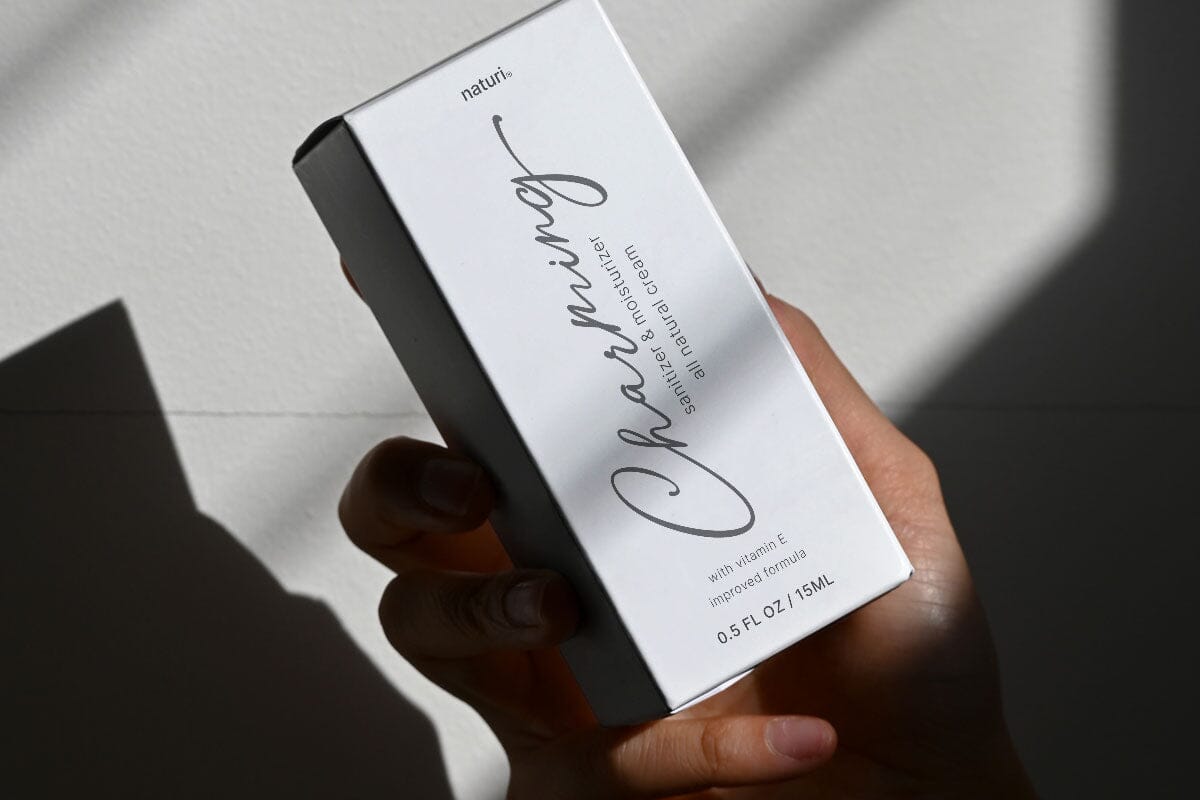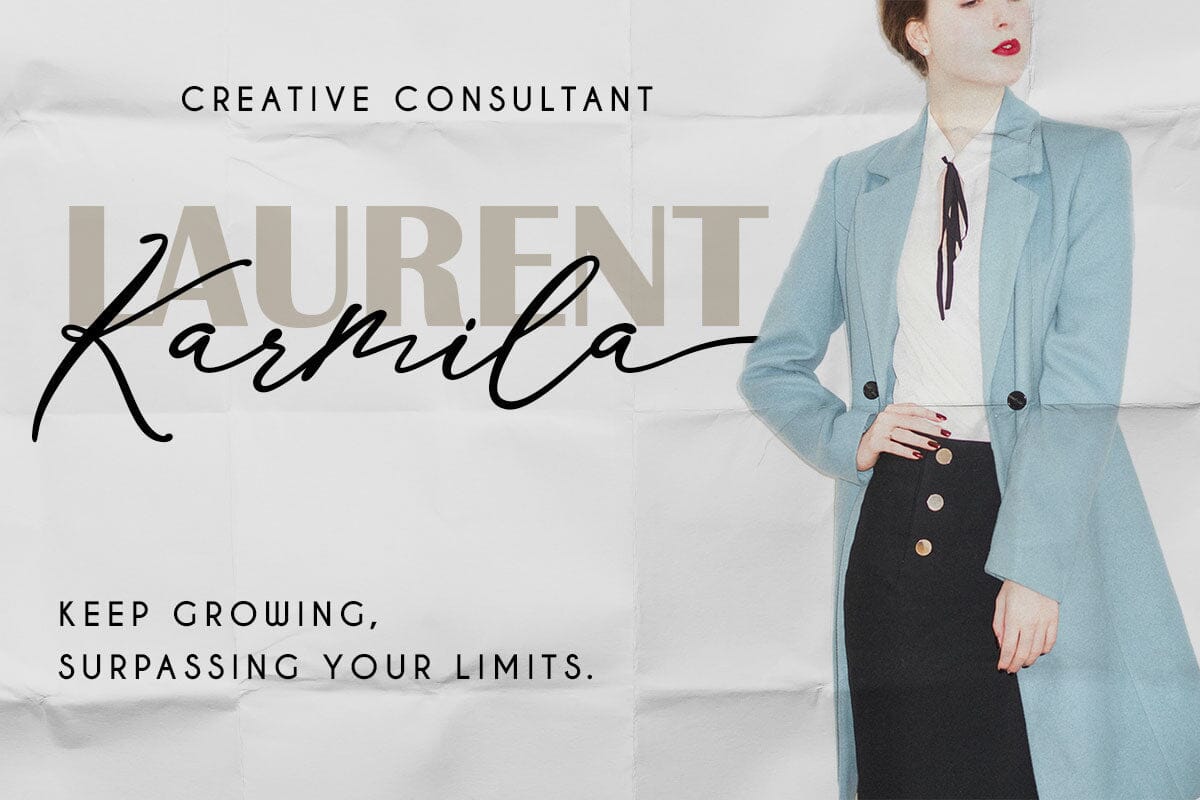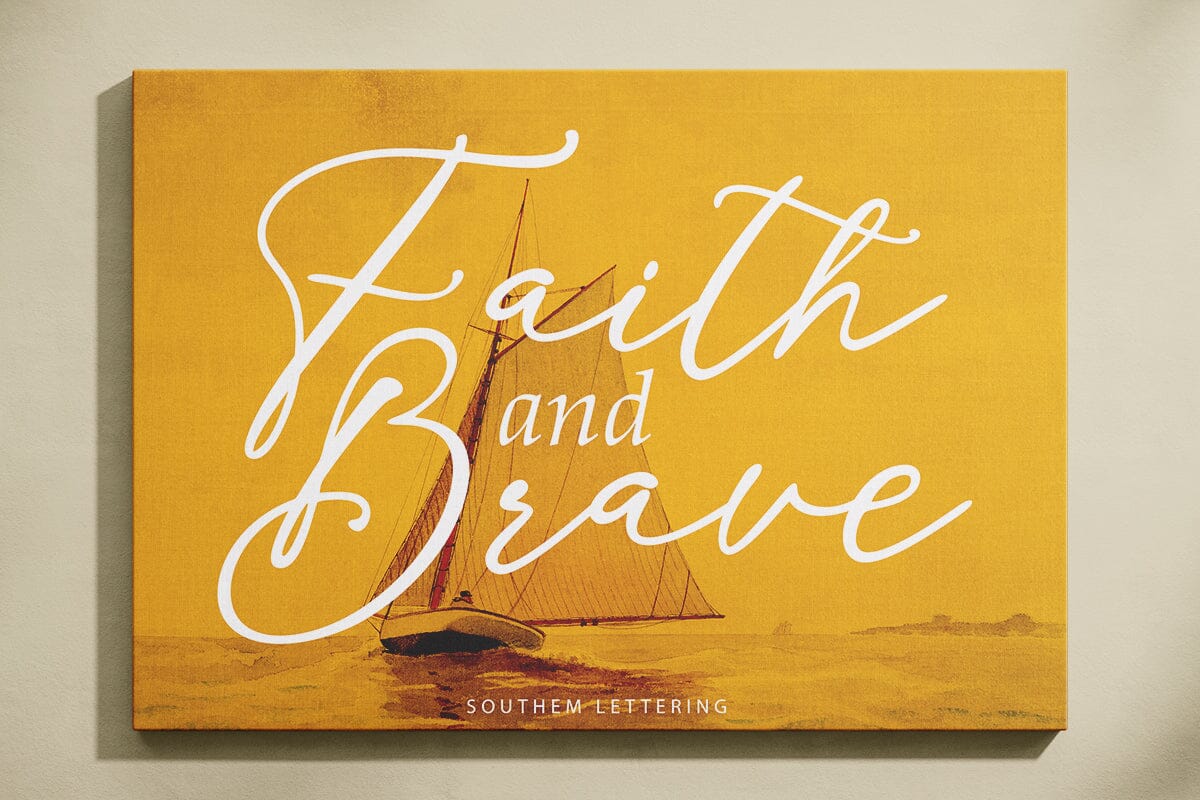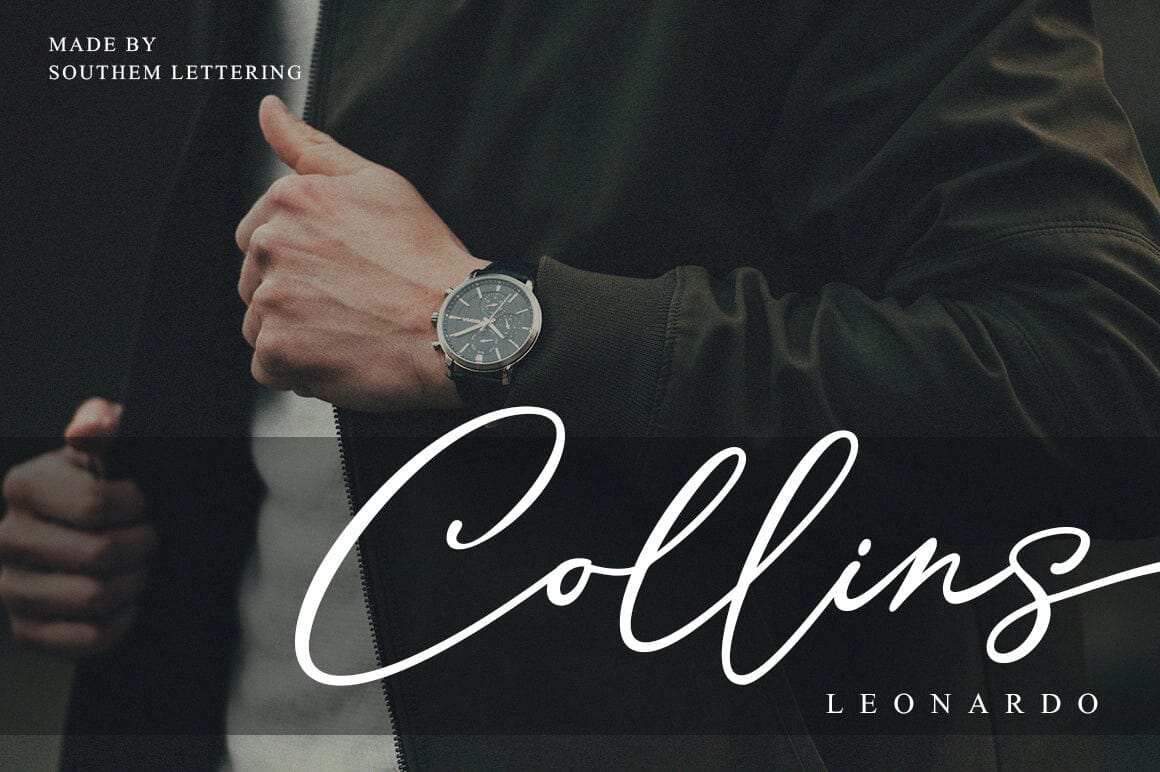
Southem Lettering Font – Free Signature Style Script Typeface
The Southem Lettering font is a stylish and modern handwritten script typeface designed to bring a personal and elegant flair to any project. Featuring fluid strokes and a natural signature style, this font captures the feeling of hand-drawn expression with a refined finish. It’s perfect for use in branding, invitations, apparel design, quote graphics, and more.
Elegant and Versatile for All Creative Needs
Whether you’re designing wedding stationery or launching a boutique brand, Southem Lettering adds a timeless and luxurious feel to your work. It offers the ideal balance between casual charm and professional polish. Its soft curves and organic movement make it especially appealing in print and digital formats.
Popular Use Cases
Thanks to its clean and legible script design, Southem Lettering shines in projects such as:
- Branding and logo design for beauty or fashion businesses
- Wedding invitations, thank-you cards, and event signage
- Social media posts and quote graphics
- Custom apparel such as t-shirts, tote bags, and hats
- Business cards, packaging, and product labels
Font Features and Styling Options
- PUA encoded – easy access to swashes and alternate glyphs
- OpenType features with ligatures and stylistic alternates
- Supports multiple languages for global design needs